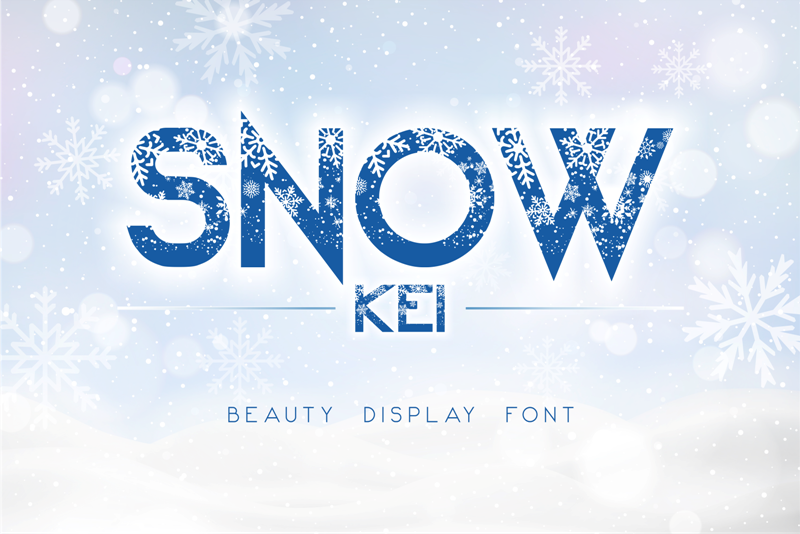
Font name: | Snow Kei |
Categories | Fancy, Fire, Ice |
Author: | Alief Syahru |
Snow Kei Display Font - a new font display with winter nuances in the style of snowflakes, perfect for an extraordinary project this winter. NOTE: This demo font is for PERSONAL USE ONLY! But any donation are very appreciated. Paypal account for donation https://www.paypal.me/arukidz Link to purchase full version and commercial license: https://www.creativefabrica.com/ref/236359 Please visit our store for more great fonts: https://www.creativefabrica.com/designer/arukidz-fl https://thehungryjpeg.com/store/arukidzfl And follow my Instagram for update: @arukidz.fl Thank you. INDONESIA: Dengan meng-install font ini, anda dianggap mengerti dan menyetujui semua syarat dan ketentuan penggunaan font dibawah ini: 1. Font ini hanya dapat digunakan untuk keperluan "Personal Use", atau untuk keperluan yang sifatnya tidak "komersil", alias tidak menghasilkan profit atau keuntungan dari hasil memanfaatkan/menggunakan font saya. Baik itu untuk individu, Agensi Desain Grafis, Percetakan, atau Perusahaan/Korporasi. 2. DILARANG KERAS menggunakan atau memanfaatkan font ini untuk kepeluan Komersial, baik itu untuk Iklan, Promosi, TV, Film, Video, Motion Graphics, Youtube, atau untuk Kemasan Produk (baik Fisik ataupun Digital) atau Media apapun dengan tujuan menghasilkan profit/keuntungan. More... |